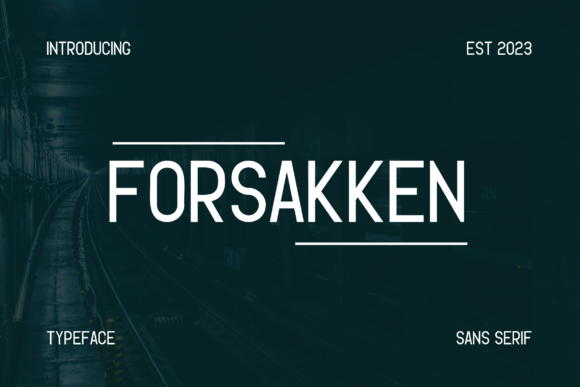
Forsakken Font: Unleashing the Power of Modern Sans Serif Typography
In the realm of typography, fonts play a crucial role in shaping the visual identity of a brand, product, or creative project. With the ever-evolving landscape of design, the demand for unique and captivating fonts has never been higher. This is where Forsakken Font comes into play – a striking sans serif font that embodies modernity, edge, and a hint of mystery.
Forsakken: A Modern Sans Serif Font with a Distinct Voice
Forsakken Font is a bold and unconventional sans serif font that boasts a distinct voice, making it perfect for designs that seek drama and boldness. Its structure is characterized by sharp lines, slightly unconventional shapes, and a modern edge that sets it apart from traditional fonts. This font is designed to make a statement, whether it’s used for album covers, posters, game titles, branding, fashion editorials, or any other design project that requires a strong visual impact.
Key Features of Forsakken Font
- Bold Structure: Forsakken Font features a bold structure that commands attention and exudes confidence.
- Sharp Lines: The font’s sharp lines add a touch of sophistication and elegance, making it suitable for high-end designs.
- Slightly Unconventional Shapes: Forsakken’s shapes are slightly unconventional, giving it a unique and distinctive look that sets it apart from other sans serif fonts.
- Modern Edge: The font’s modern edge makes it perfect for designs that require a fresh and contemporary look.
Perfect Use Cases for Forsakken Font
Forsakken Font is versatile and can be used in various design projects, including:
- Album Covers: The font’s bold and striking appearance makes it perfect for album covers that require a strong visual impact.
- Posters: Forsakken Font is ideal for posters that need to grab attention and convey a message quickly.
- Game Titles: The font’s modern edge and bold structure make it suitable for game titles that require a strong and edgy look.
- Branding: Forsakken Font can be used for branding projects that require a unique and distinctive visual identity.
- Fashion Editorials: The font’s sophisticated and elegant look makes it perfect for fashion editorials that require a high-end look.
Design Tips for Using Forsakken Font
To get the most out of Forsakken Font, here are some design tips to keep in mind:
- Use it Boldly: Forsakken Font is designed to make a statement, so use it boldly and prominently in your designs.
- Experiment with Colors: The font’s bold structure and sharp lines make it perfect for experimenting with different colors and gradients.
- Pair it with Simple Backgrounds: Forsakken Font can be overwhelming, so pair it with simple backgrounds to create a balanced look.
- Play with Typography: The font’s unique shapes and modern edge make it perfect for playing with typography and creating creative text arrangements.
Forsakken Font and Typography Trends
Forsakken Font is a reflection of current typography trends, which emphasize boldness, uniqueness, and creativity. The font’s modern edge and distinctive voice make it a great example of:
- Bold Typography: Forsakken Font is a perfect example of bold typography, which is a popular trend in design.
- Sans Serif Fonts: The font’s sans serif design makes it a great example of the popularity of sans serif fonts in modern design.
- Experimental Typography: Forsakken Font’s unique shapes and structures make it a great example of experimental typography.
In conclusion, Forsakken Font is a striking sans serif font that embodies modernity, edge, and a hint of mystery. Its bold structure, sharp lines, and slightly unconventional shapes make it perfect for designs that seek drama and boldness. With its versatility and unique voice, Forsakken Font is a great addition to any design project, from album covers to branding and fashion editorials.